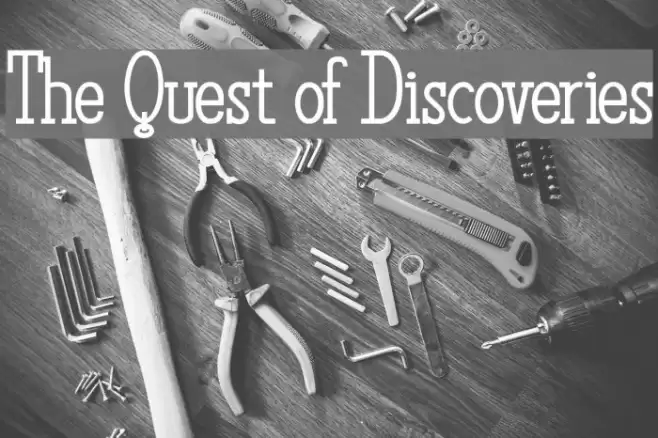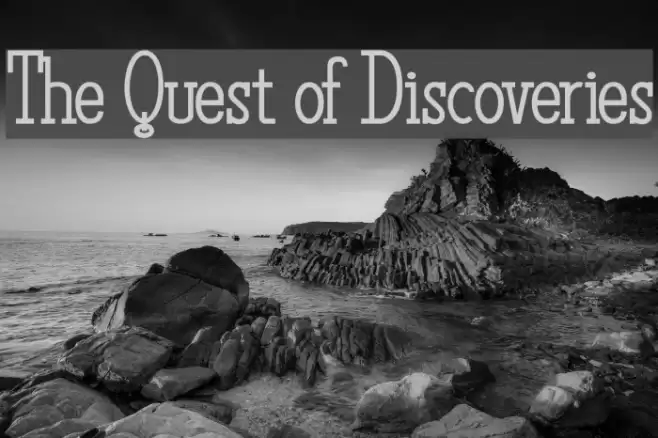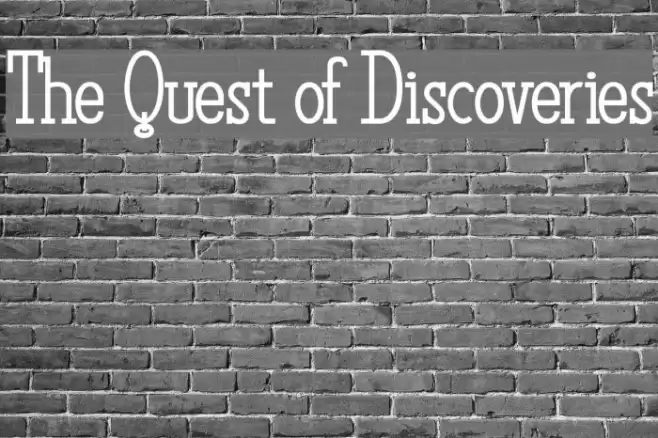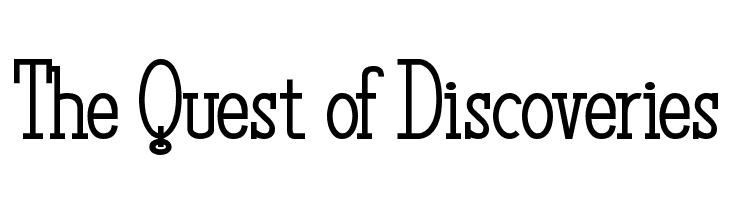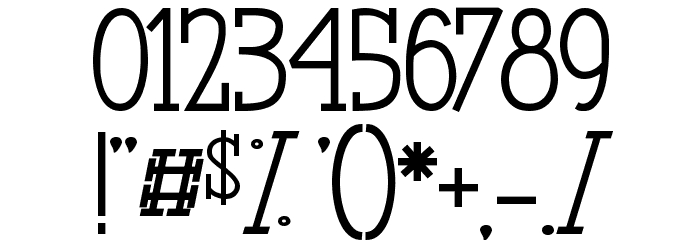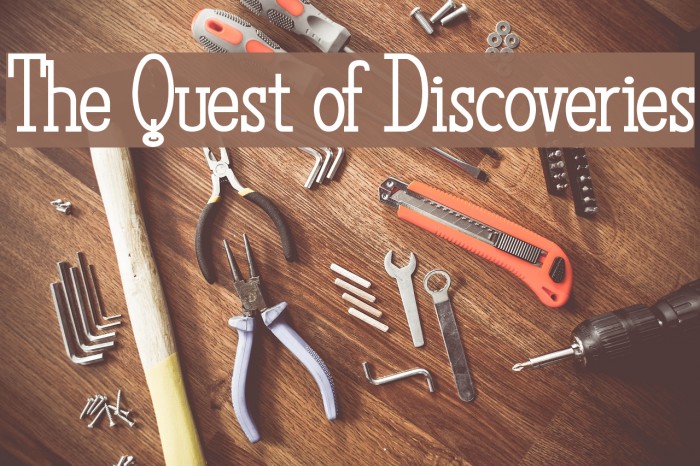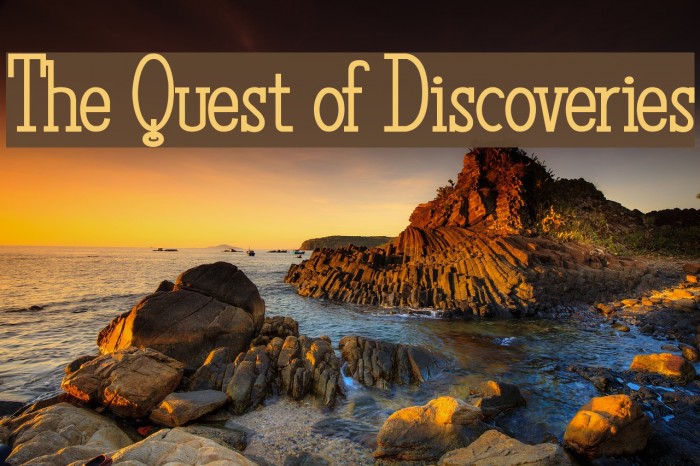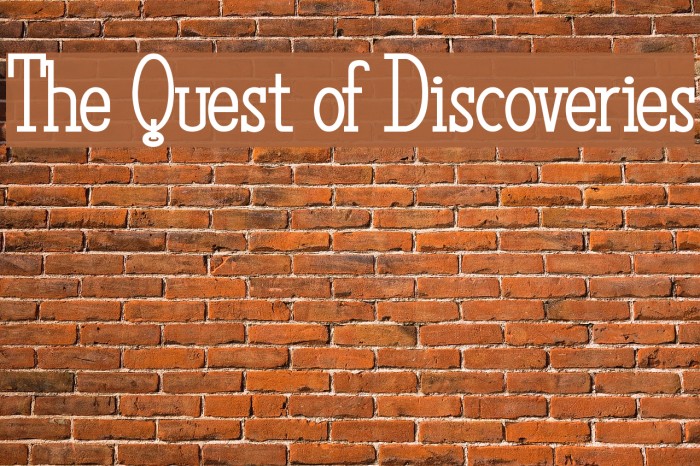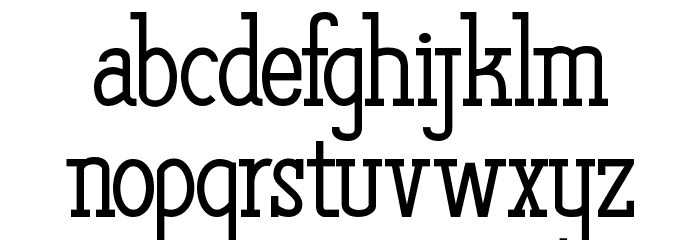
The Quest of Discoveries Font
The Quest of Discoveries Description
This font features a classic serif design with a strong presence and high legibility. The characters are tall and narrow, giving it an elegant and sophisticated appearance. The serifs are pronounced, adding a traditional touch, while the overall structure maintains a modern feel. The uppercase letters are particularly striking, with a consistent height and balanced proportions. The lowercase letters complement the uppercase with a slightly more relaxed style, yet they maintain the same level of clarity and precision. The numbers are clear and easy to read, making them suitable for a variety of applications. The special characters are well-integrated, ensuring seamless use in different contexts.
A classic serif font with tall, narrow characters and pronounced serifs from Uncategorized fonts.
- Proposed Projects: Ideal for editorial design, book covers, formal invitations, and branding projects that require a touch of elegance.
- Overall Style: Classic